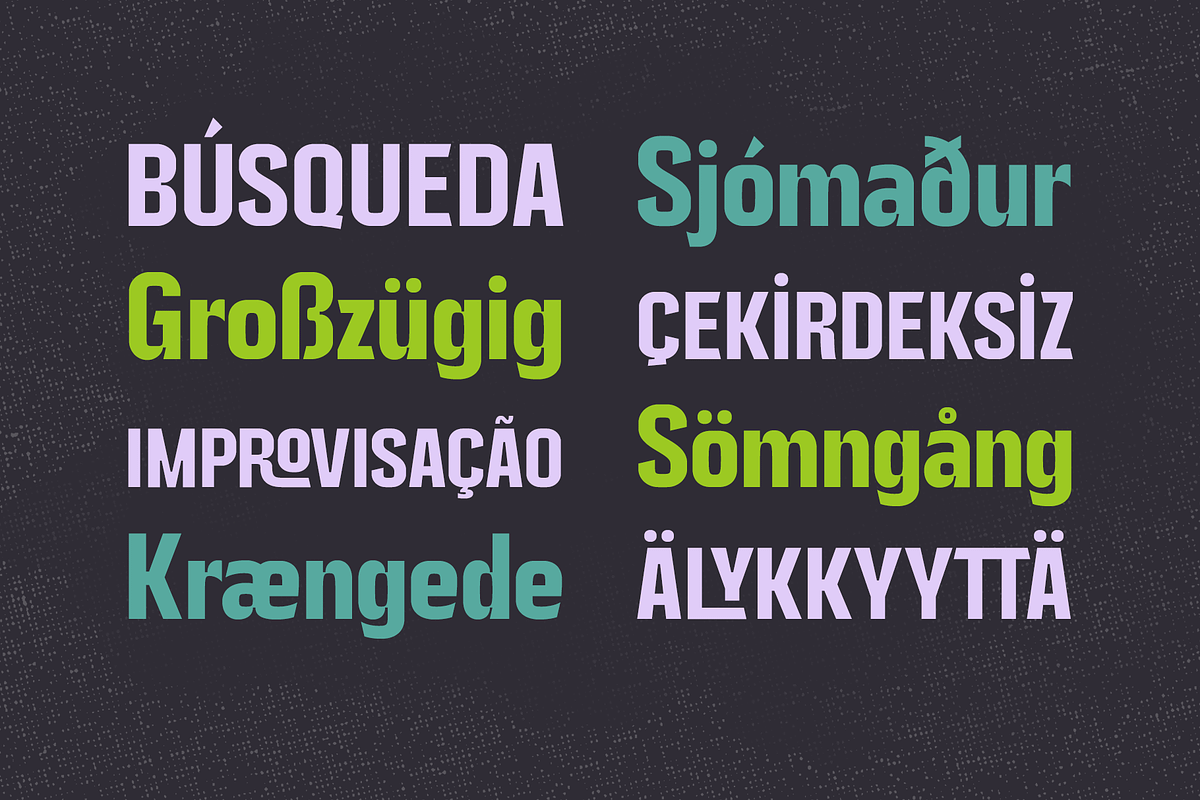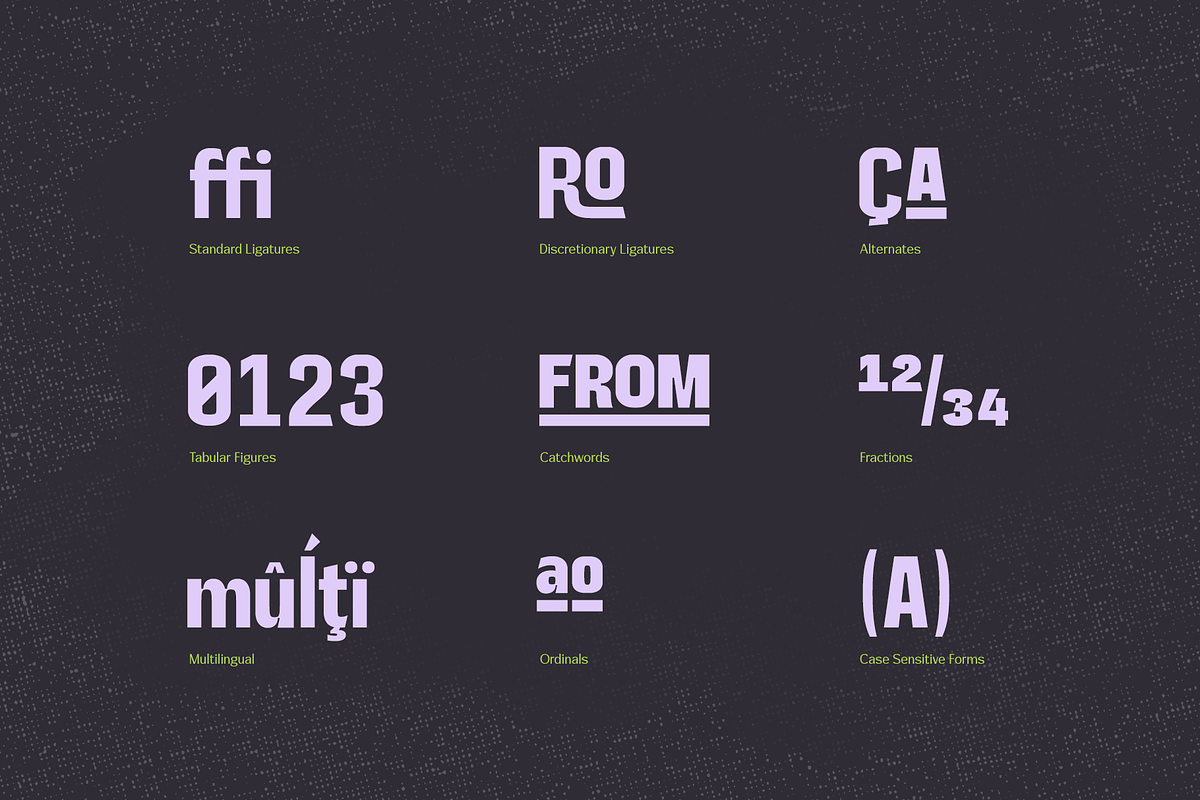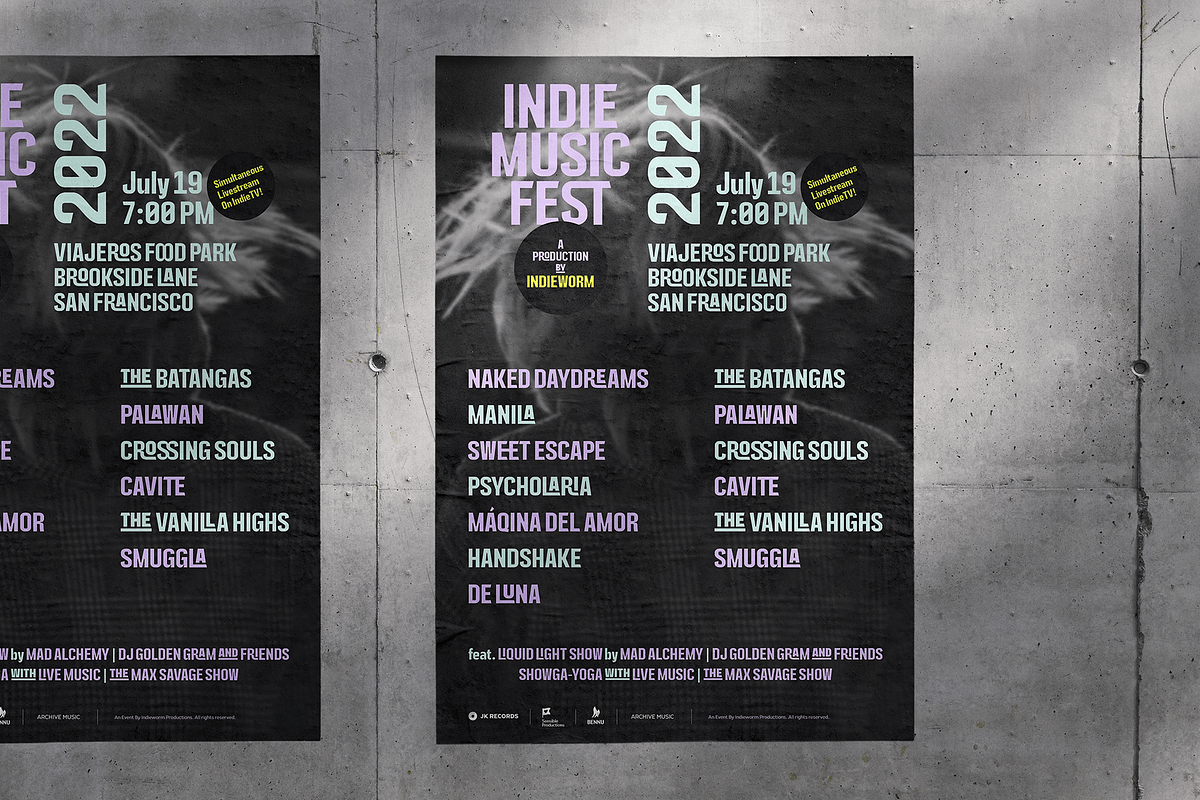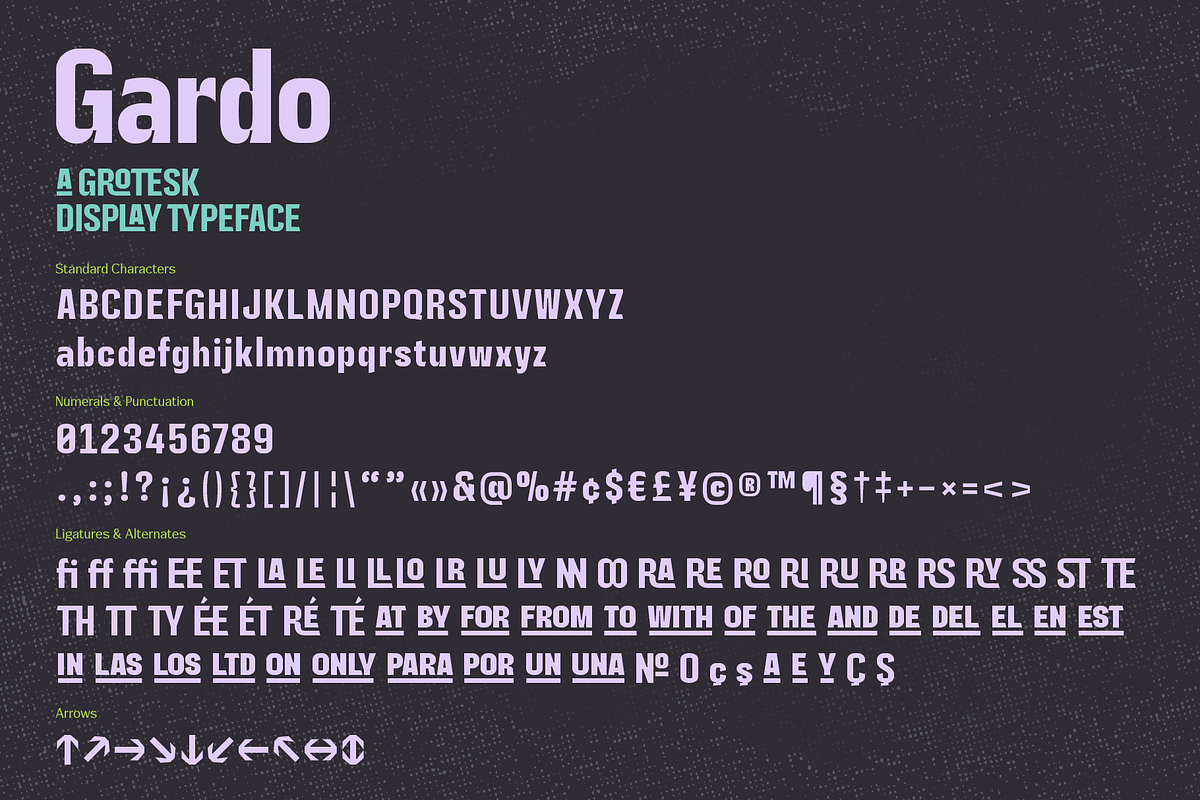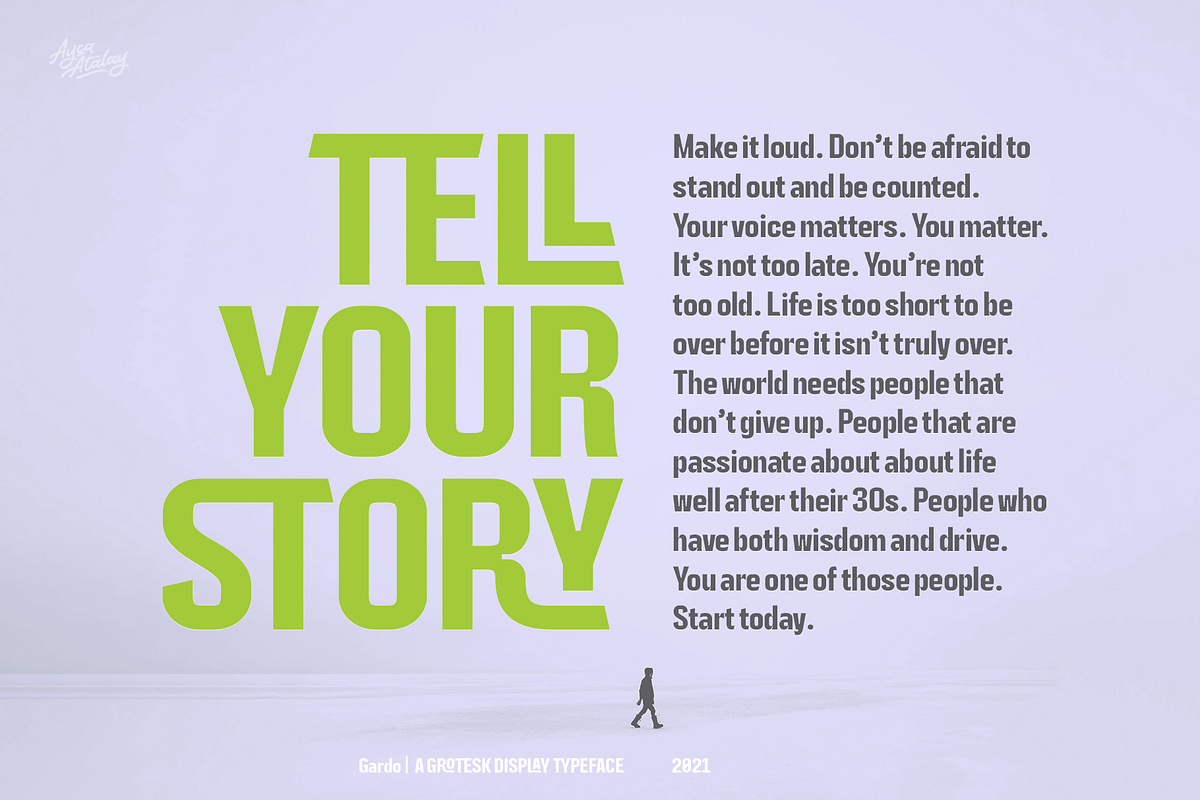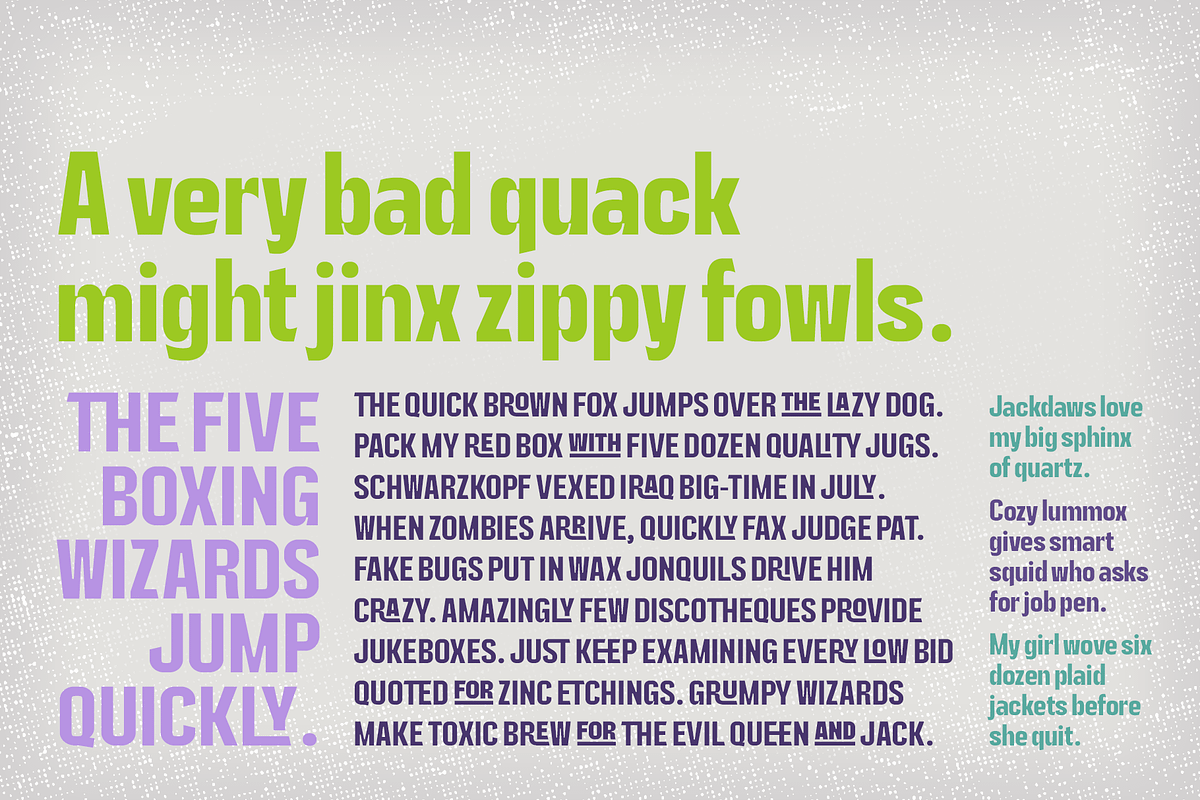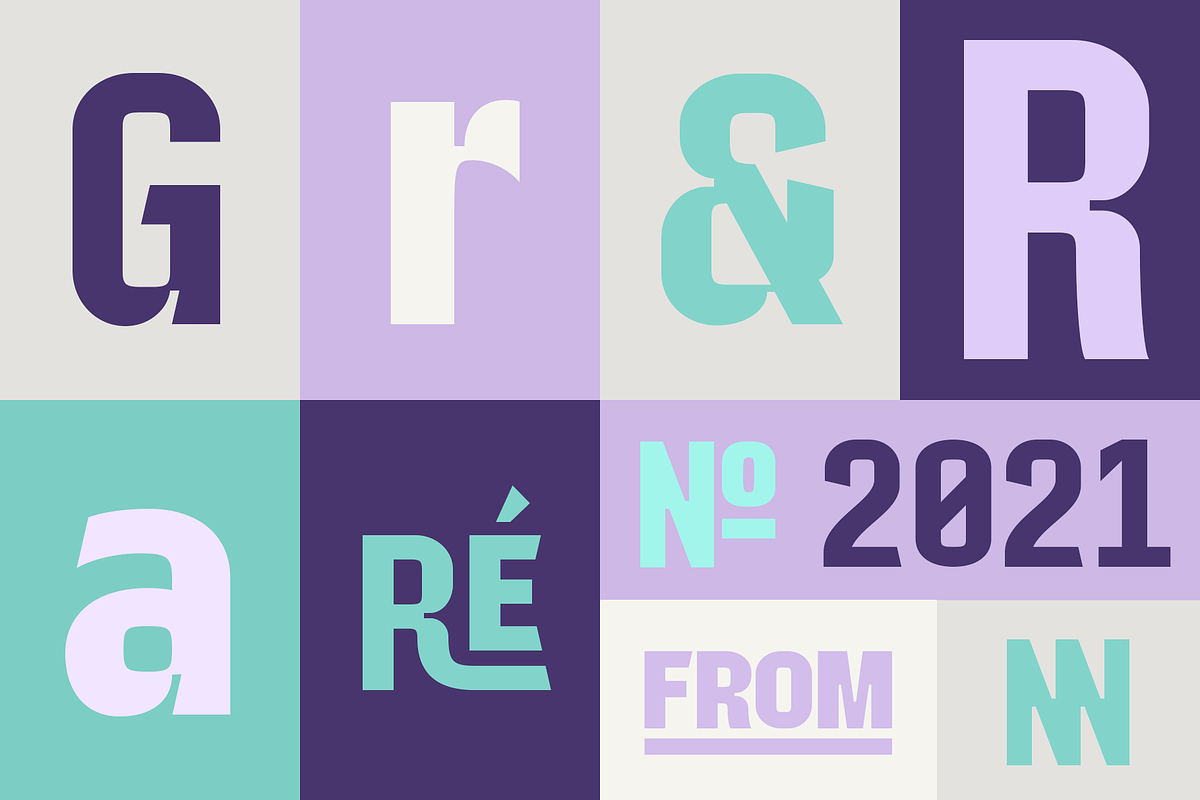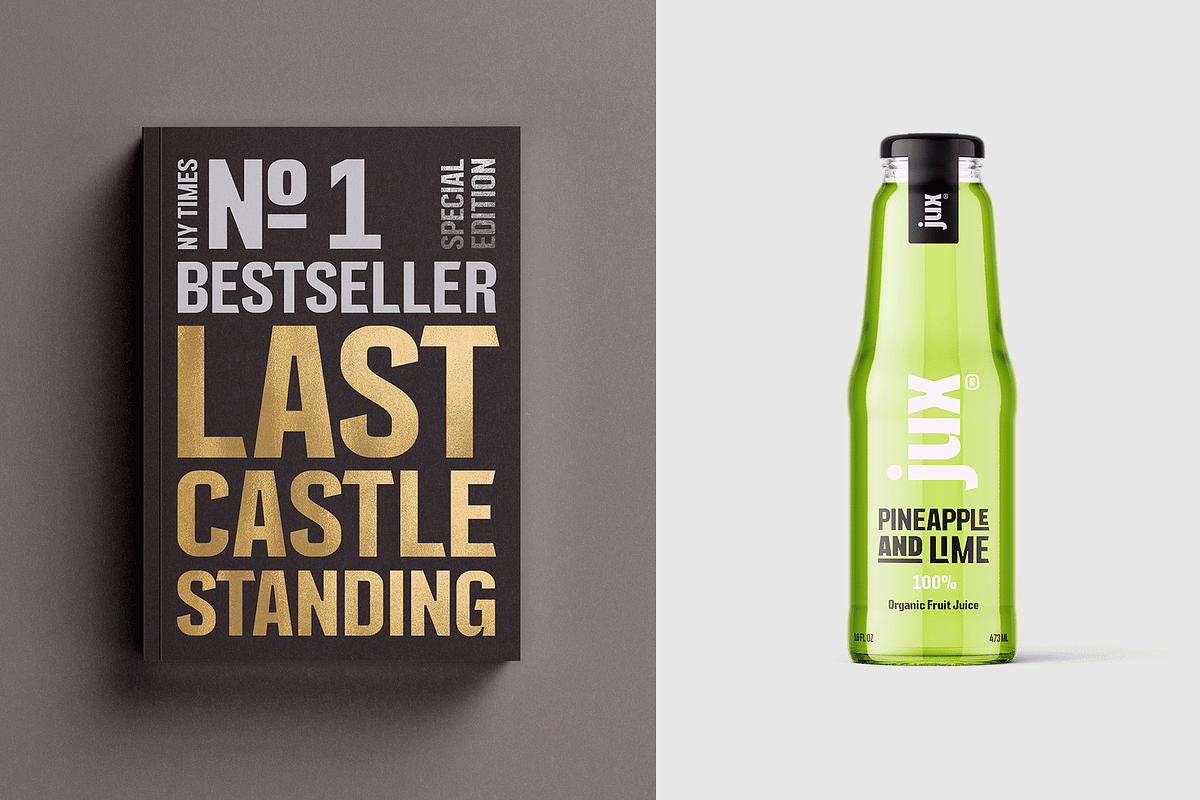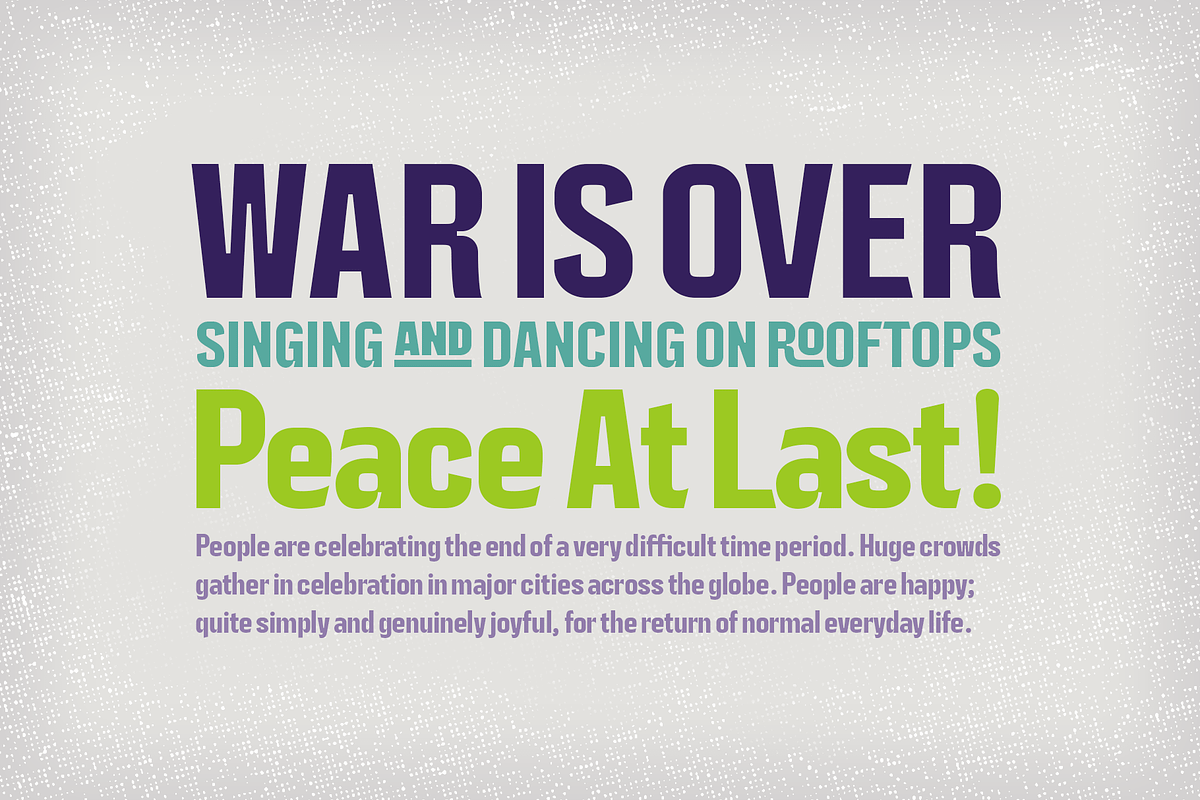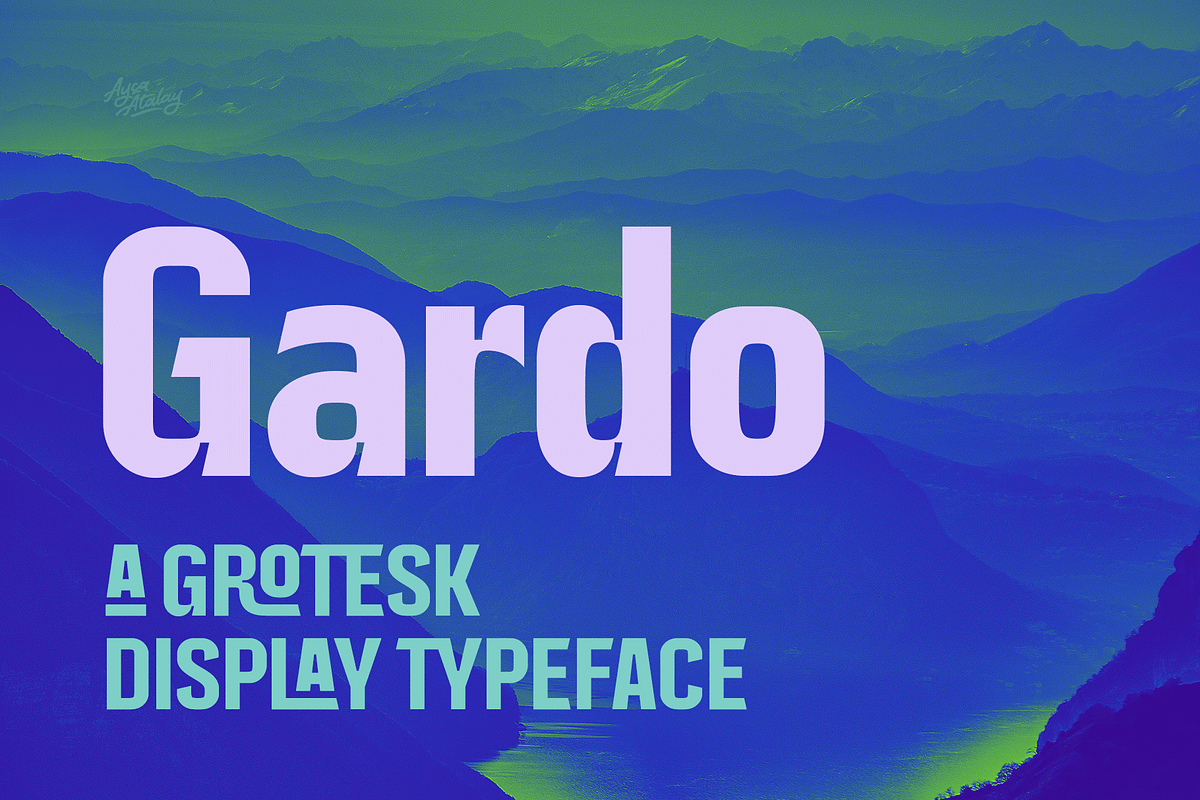
Gardo Grotesk | A Display Sans
Gardo Grotesk is a bold condensed display typeface designed to make a strong impact. Armed with eye catching ligatures and catchwords, combined with its striking visual features, Gardo Grotesk grabs the attention of the reader effortlessly.
PROPERTIES
- Uppercase and Lowercase Letters
- Standard and Discretionary Ligatures
- Alternate Characters
- Fractions
- Tabular Figures
- Case Sensitive Forms
- Ordinals
- Catchwords
- Arrows